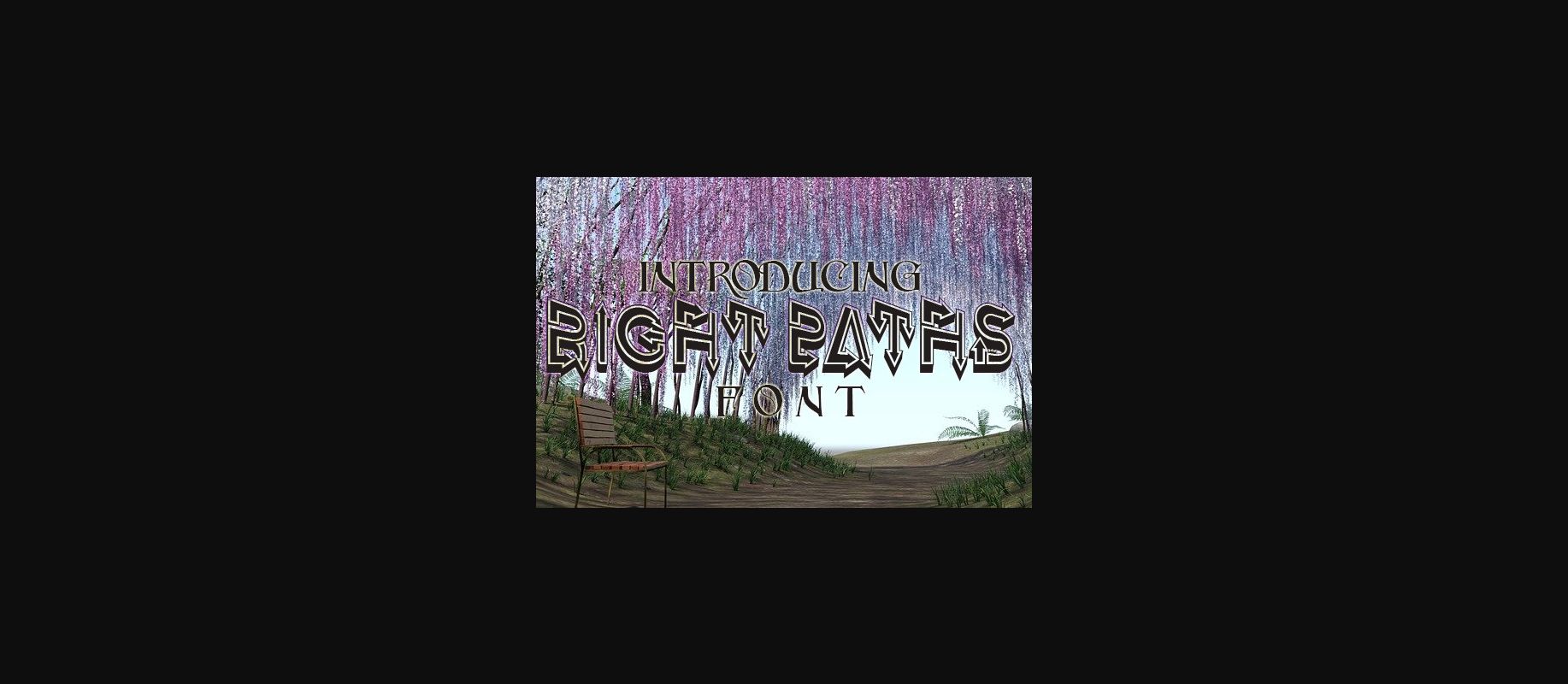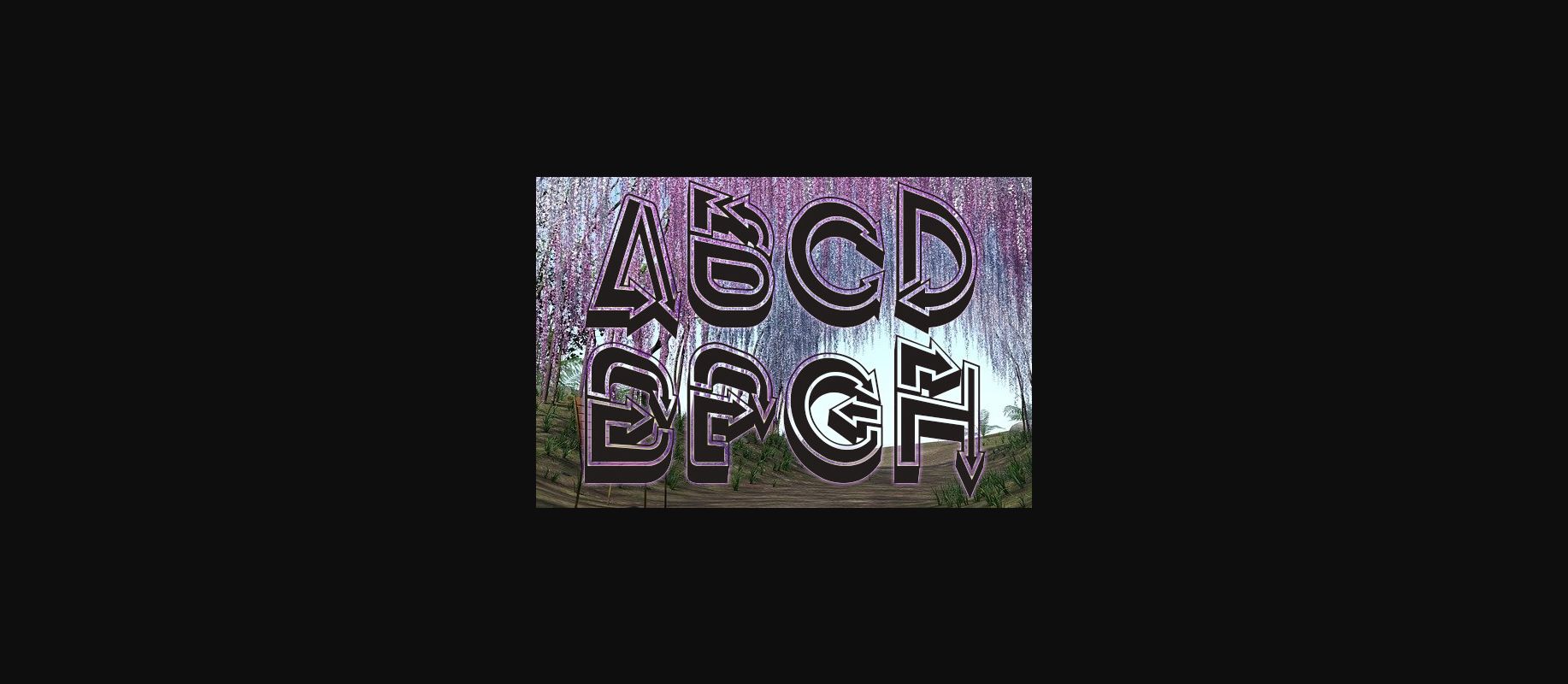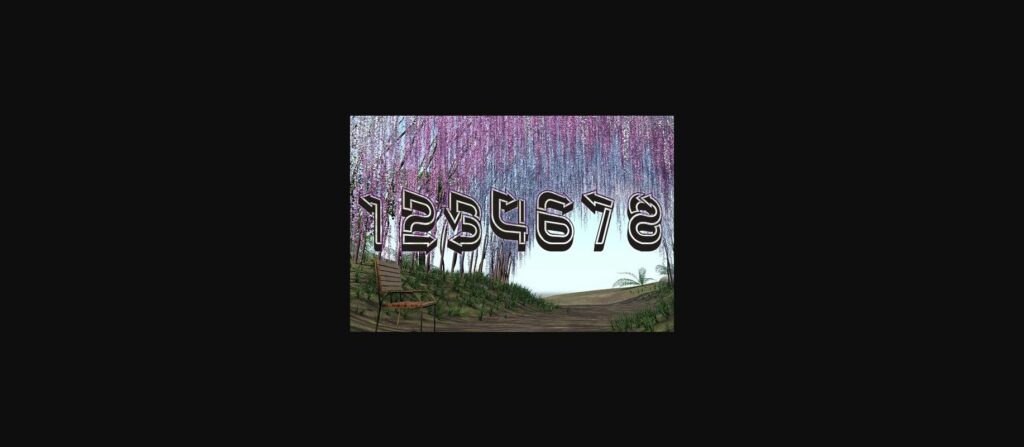
HomeDecorative FontsRight Paths Font Decorative Fonts Right Paths Font FacebookXPinterestWhatsApp 1 of 5 ... Right Paths Font Poster 2... Right Paths Font Poster 3... Right Paths Font Poster 4... Right Paths Font Poster 5... About Right Paths Font Right Paths is a decorative font that has an awesome visual look. This font will look stunning on any poster, flyer, banner or print. DOWNLOAD NOW People also explored Estrada Signature Font Milkshake Font Maveryn Font Nolan Claire – Modern Script Font Secretsoul Monoline Font Bohay Font Charlotte Monogram Font Bodoni Classic 2 Dottinghise Font 277 0 TagsRight Paths Font Previous articleMorava FontNext articleThe End Font LEAVE A REPLY Cancel reply Comment: Please enter your comment! Name:* Please enter your name here Email:* You have entered an incorrect email address! Please enter your email address here Website: Save my name, email, and website in this browser for the next time I comment. Personal Use Free Chandella Personal Use Free Read more about this font Black Friday Personal Use Free Read more about this font Coconote Personal Use Free Read more about this font Arabella Script Personal Use Free Read more about this font BLOG Best Fonts for YouTube Videos: Make Your Thumbnails Stand Out Best Fonts for YouTube Videos: Make Your Thumbnails Stand Out Choosing the right font can make a massive difference in how your YouTube videos perform.... Exploring Font Trends Top 10 Handwritten Fonts That Elevate Your Designs Free Fonts Risk: Why Free Fonts Can Be Dangerous for Designers